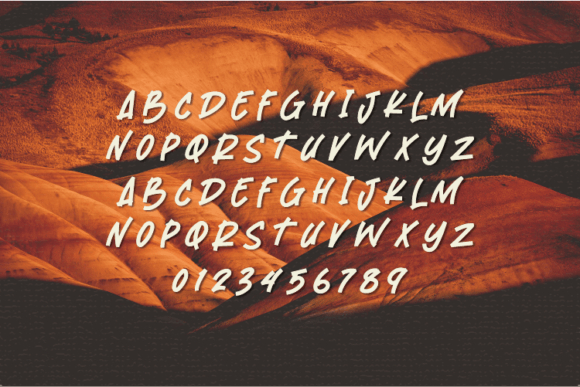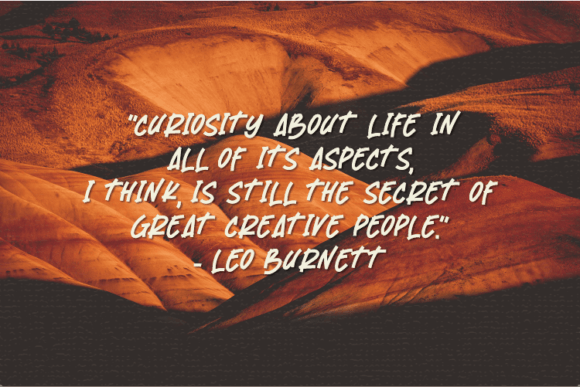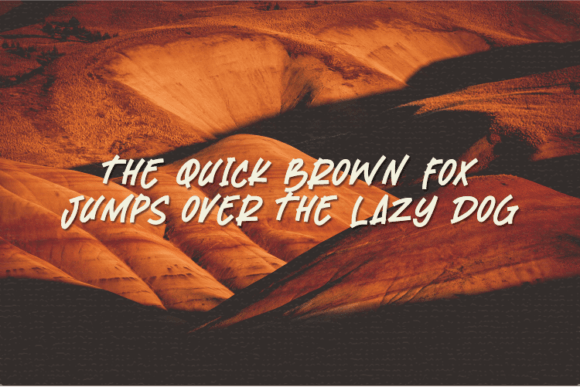
The Bloodiest Font: A Fun and Casual Handwritten Delight
I’ll never forget the time I was working on a project for a client who requested a fun and playful font for their greeting card design. I scoured the internet, tried out dozens of fonts, but nothing seemed quite right. That was until I stumbled upon the Bloodiest font. It was love at first sight! 💕 In this article, I’ll share my experience with this amazing font, its features, and how to make the most of it in your designs.
So, what makes Bloodiest so special? Here are some things I love about this font:
- ✨ Unique and playful handwritten style that’s perfect for a variety of design projects
- 💬 Great for creating eye-catching headings, titles, and text
- 🎨 Versatile and can be used for both digital and print designs
Of course, no font is perfect, and Bloodiest has a few small quirks:
- 🤔 Some characters may not work well in all contexts, such as in combination with certain punctuation marks
- ⚠️ Limited language support, so it’s best suited for English or similar languages
The Story Behind Bloodiest
Bloodiest was designed with one goal in mind: to create a fun and casual handwritten font that’s perfect for a variety of design projects. The designer wanted to create a font that would add a touch of personality to any design, without being too over-the-top or distracting.
| Font Name | Bloodiest Font |
| Author | Hanna Bie |
| What is the best use for Bloodiest? | Bloodiest is perfect for a variety of design projects, including greeting cards, invitations, posters, flyers, and more. |
| Is Bloodiest suitable for body text? | While Bloodiest is highly legible, it’s best suited for headings, titles, and short paragraphs. For longer body text, you may want to choose a more traditional font. |
| Is Bloodiest available in different languages? | Bloodiest has limited language support, so it’s best suited for English or similar languages. |